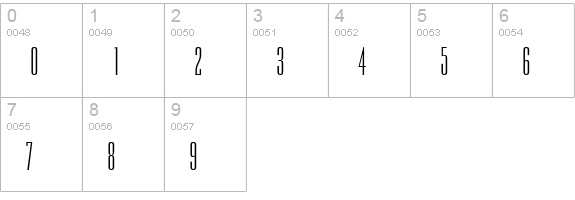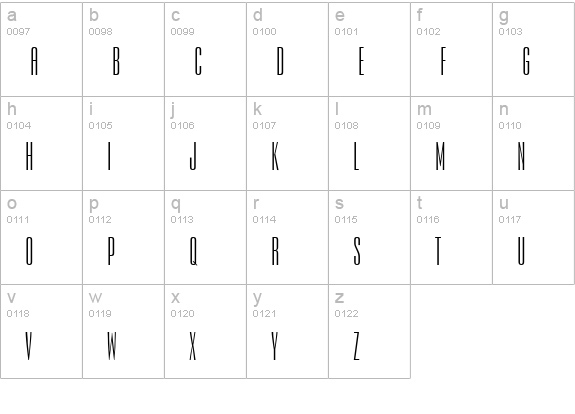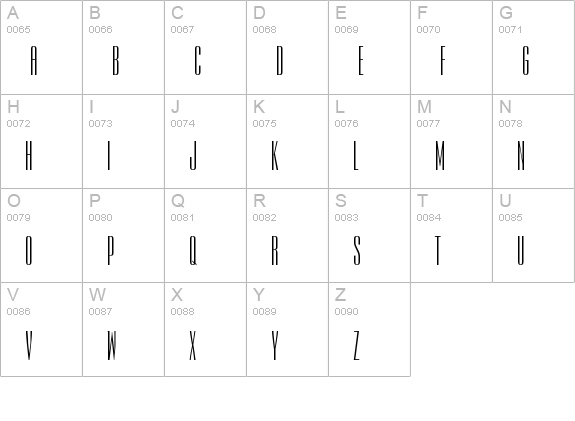
Expel Normal Font Details
Expel Normal is the standard, neutral variant in the Expel typeface family \xE2\x80\x94 well suited to general body text, paragraphs, and standard typographic work.
Introducing Expel Normal font, a versatile and modern typeface that is perfect for a wide range of design projects. With its clean lines and balanced proportions, Expel Normal exudes a sense of professionalism and sophistication. This font is ideal for branding, packaging, headlines, and more. What sets Expel Normal apart is its effortless ability to convey a sense of elegance and refinement while remaining highly readable. The sleek design of this font makes it a great choice for both digital and print applications. Best of all, Expel Normal is available for free download at FontsMarket.com. So whether you're a seasoned designer looking to add a fresh font to your collection or a newcomer in need of a reliable typeface, Expel Normal has you covered. Download it today and elevate your design projects with this stunning font.